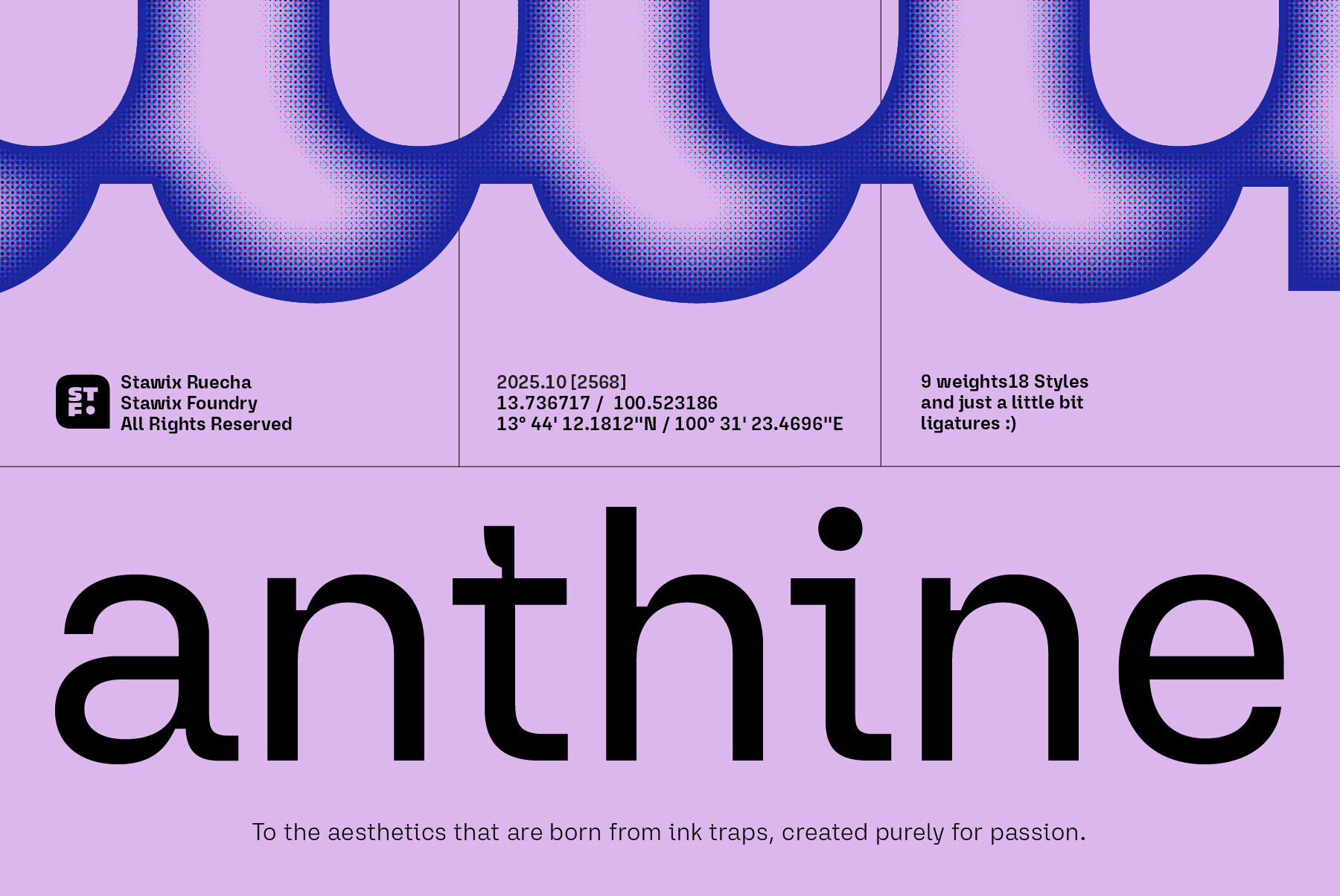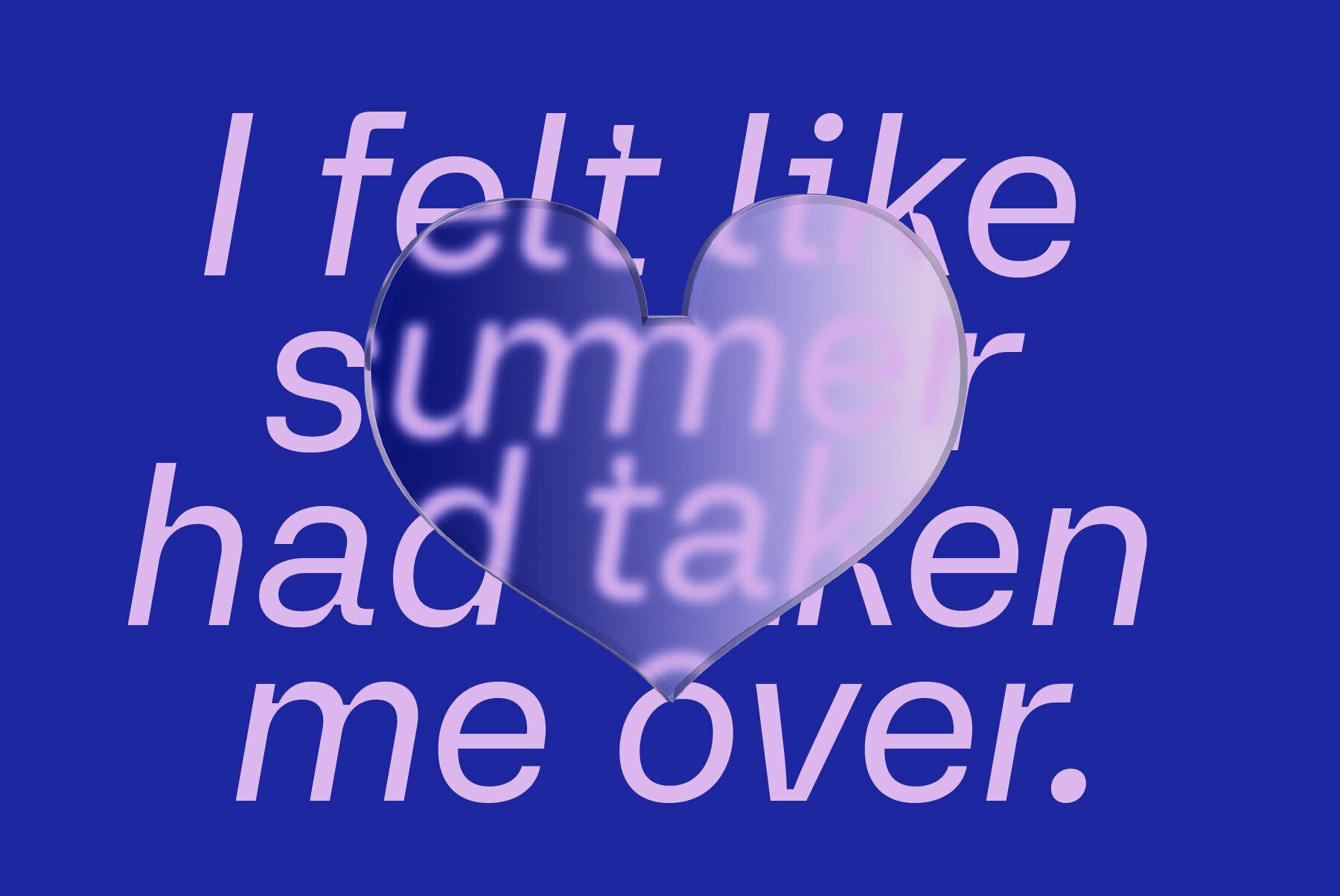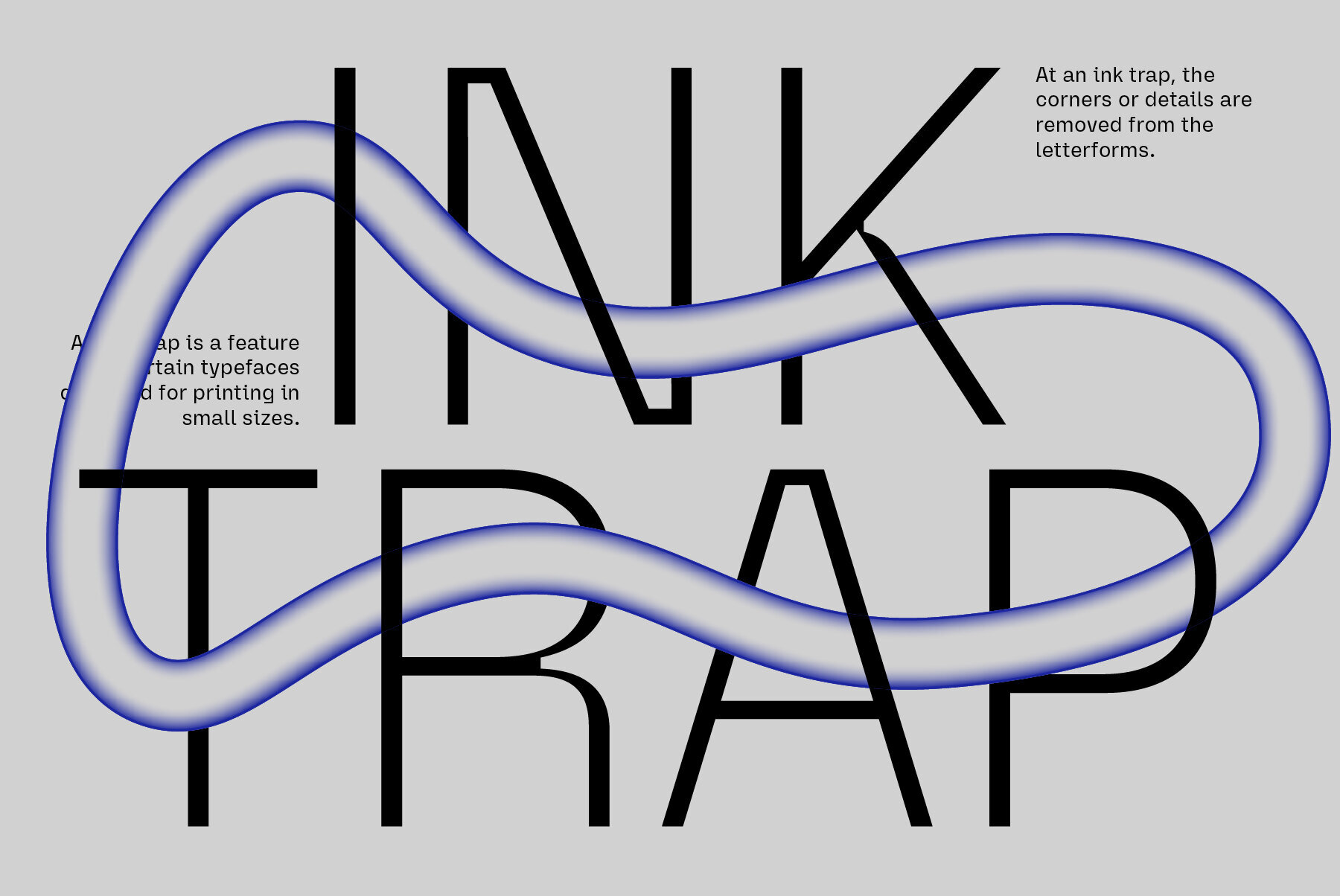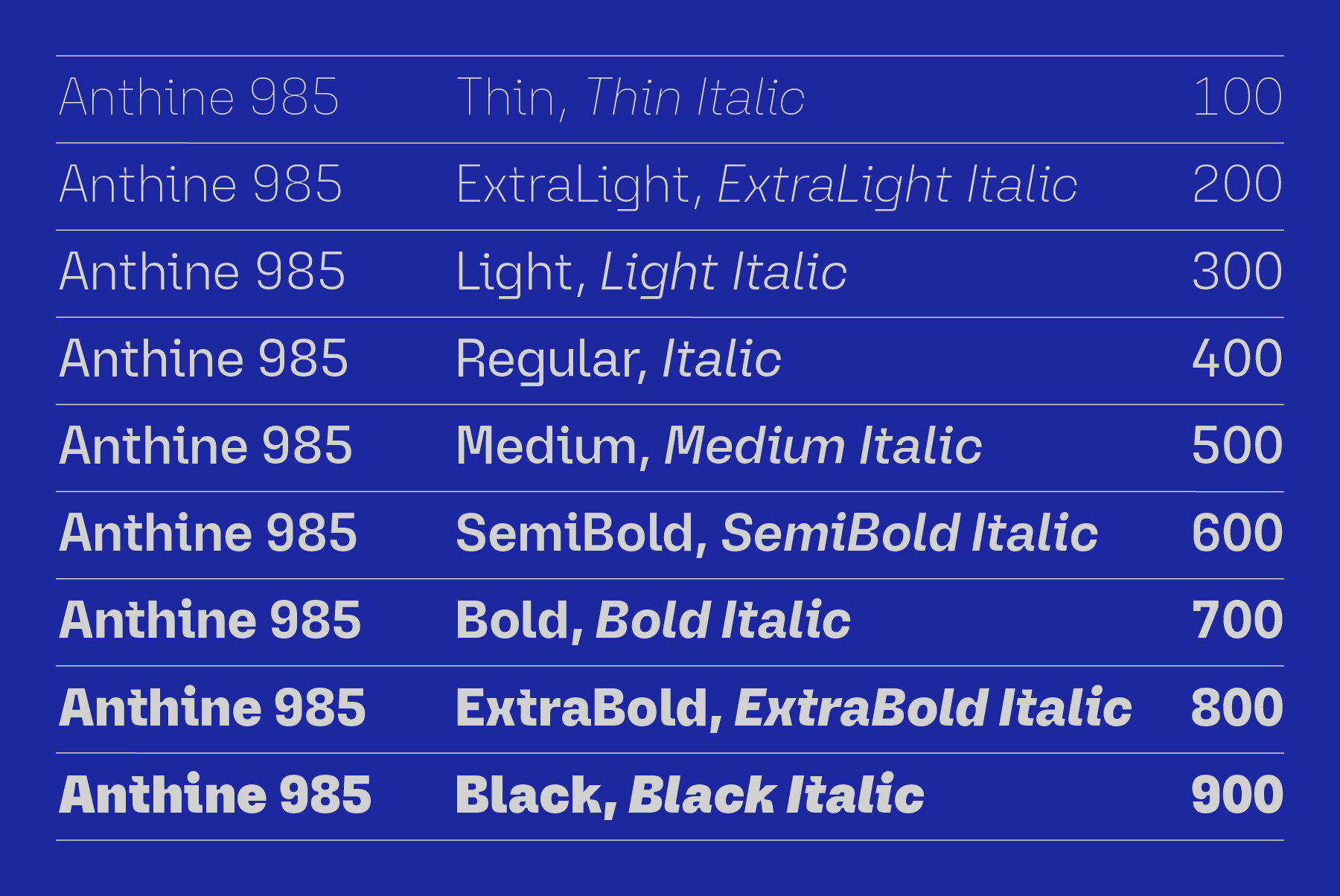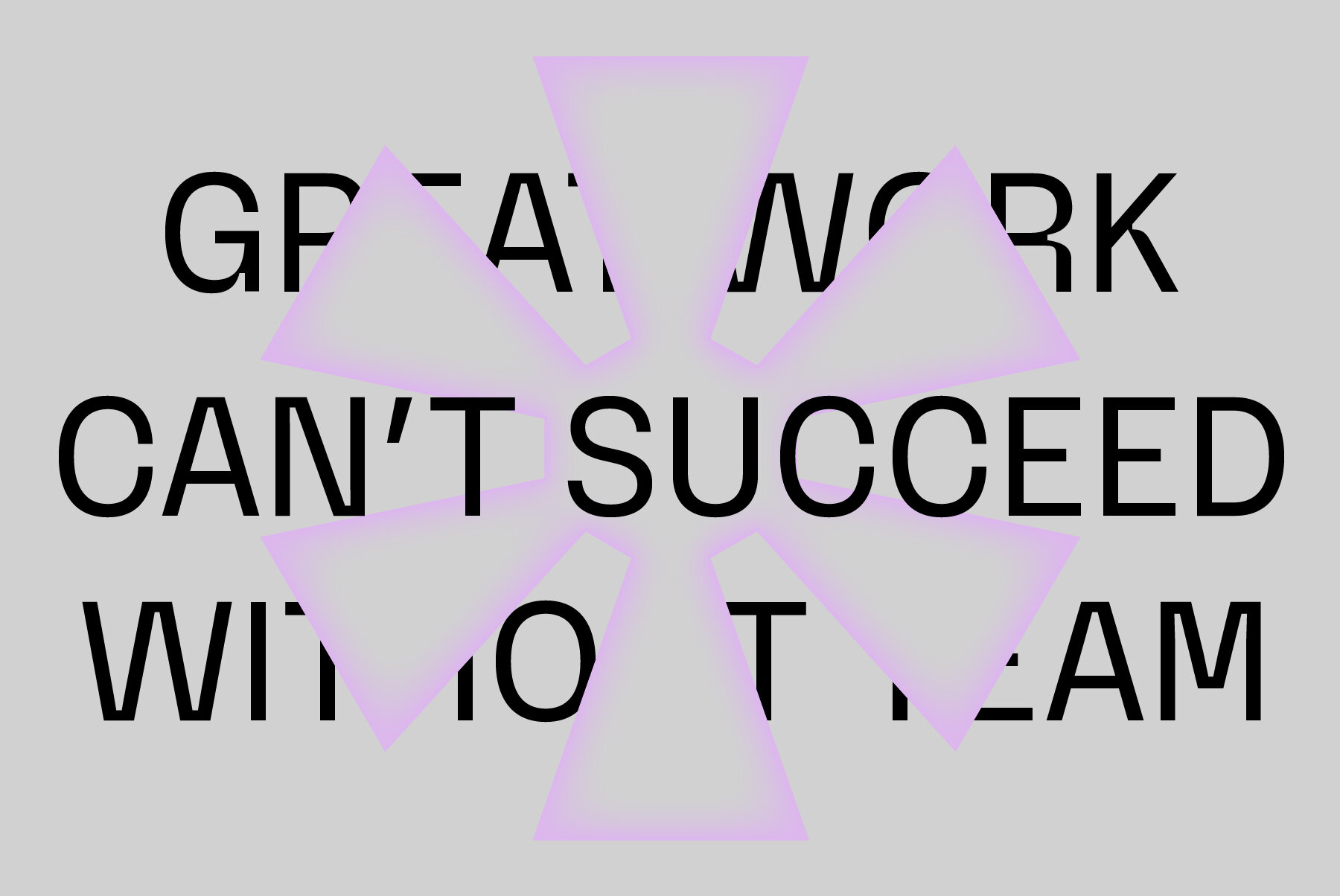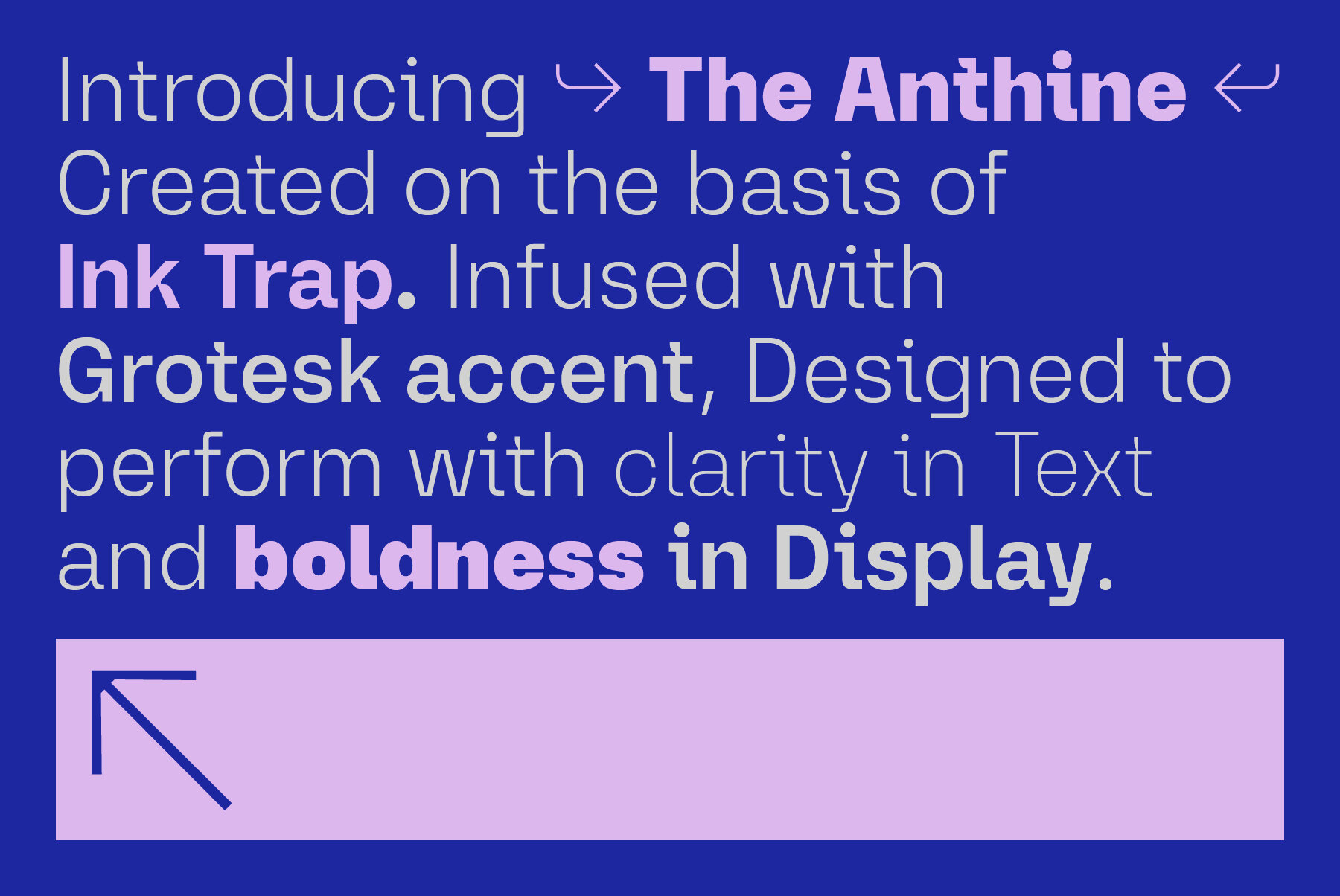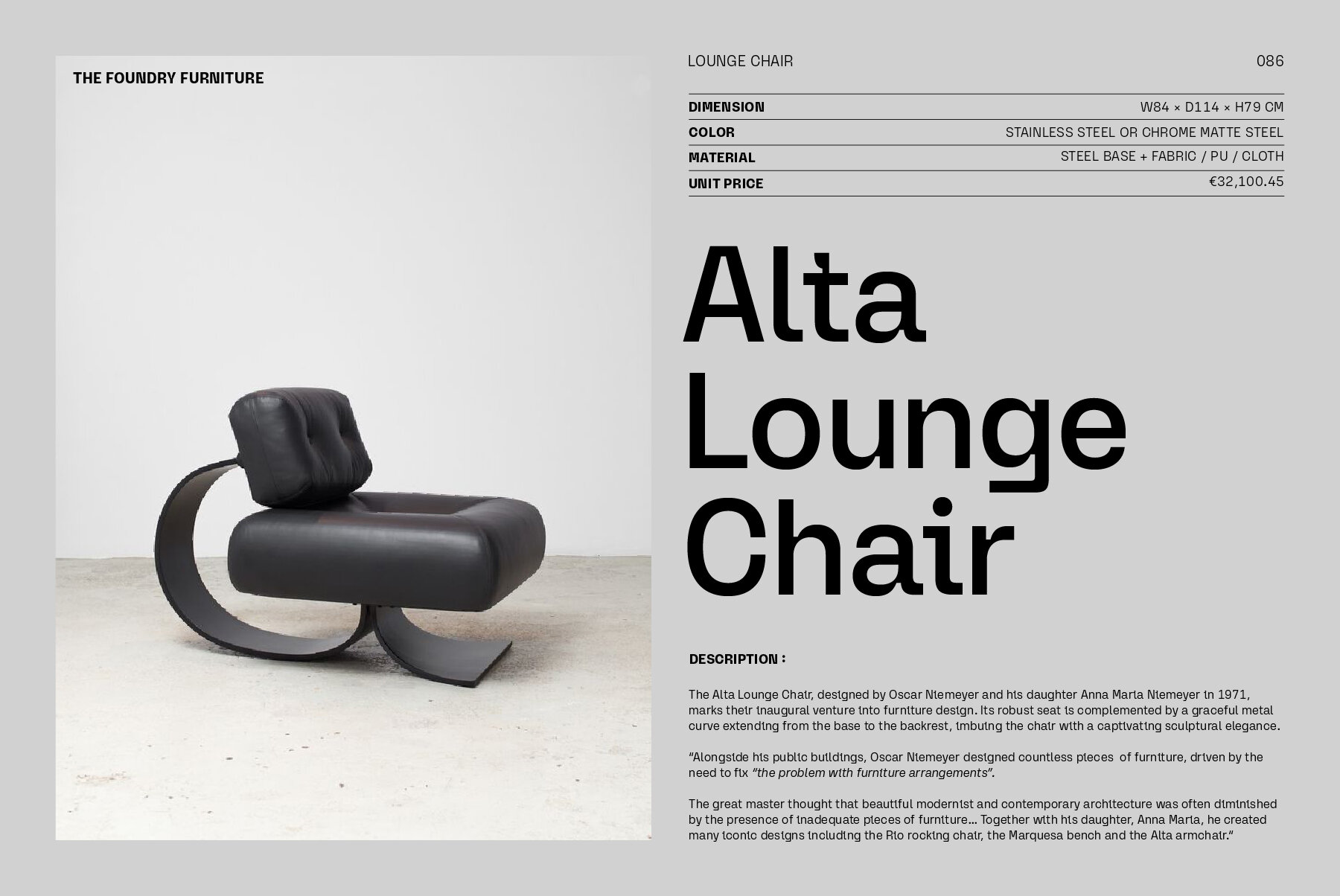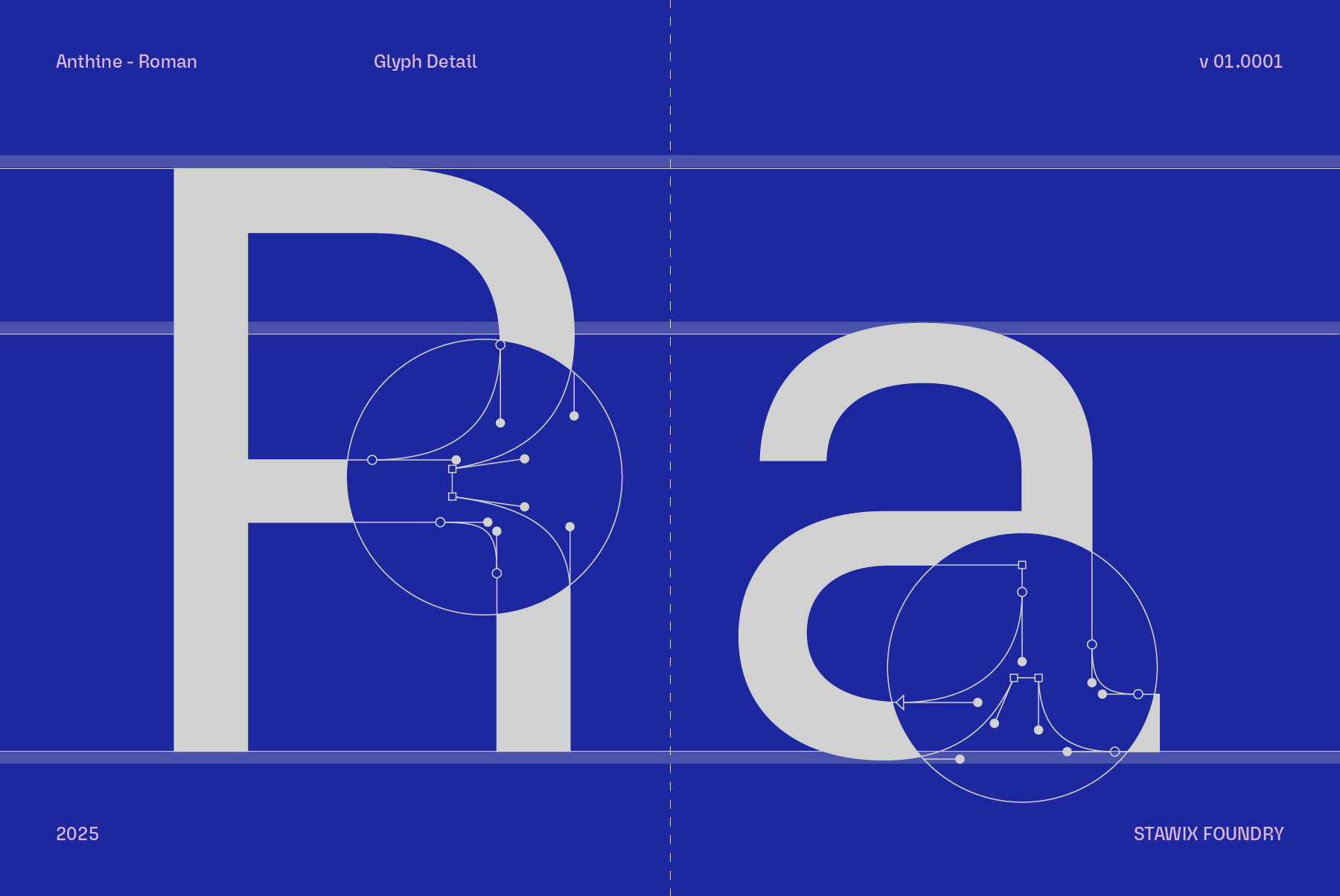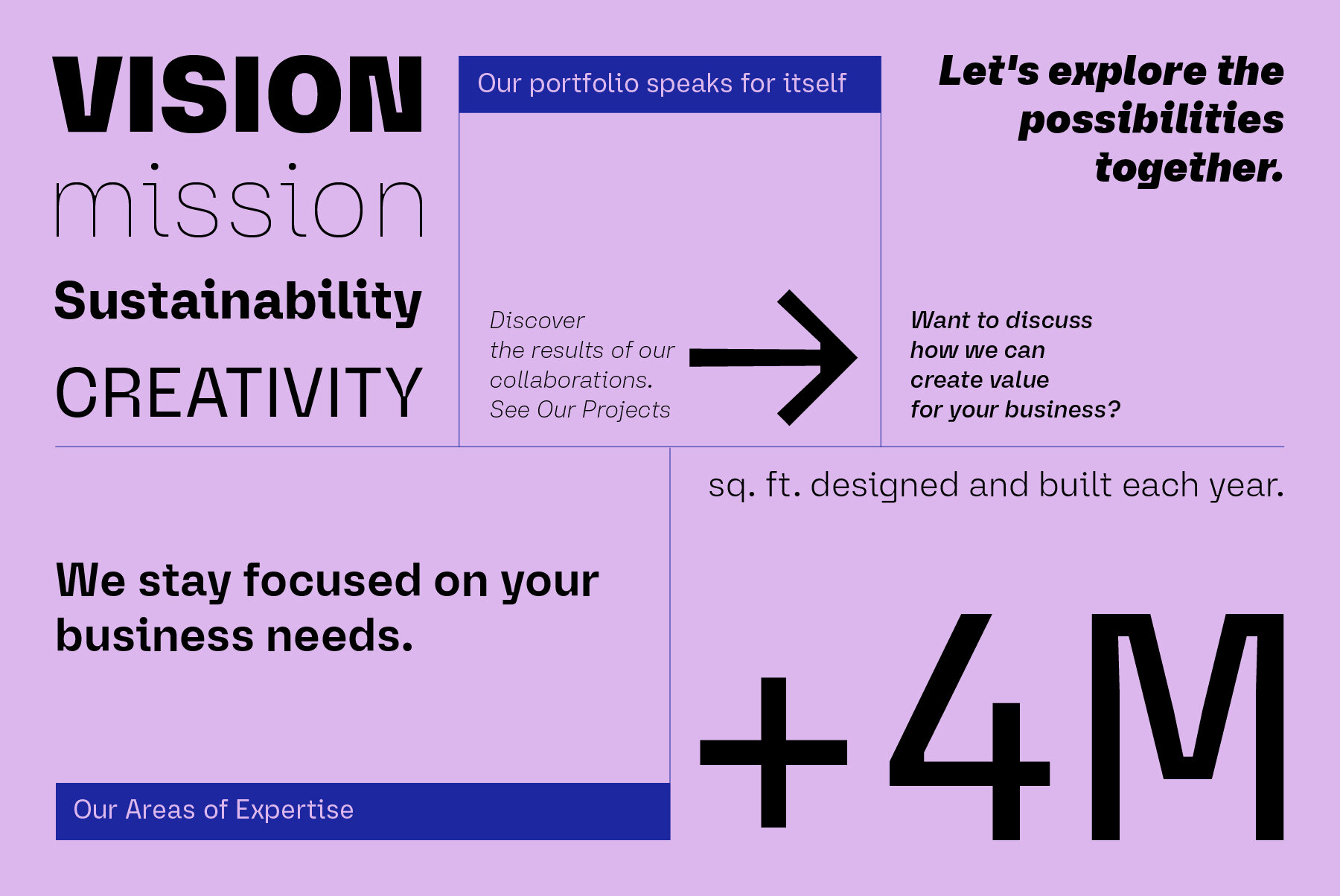
Anthine Font
Typography transcends mere shapes and letters; it is where clarity meets expression. Anthine encapsulates this philosophy by transforming subtle ink trap aesthetics into a defining feature. This choice results in a typeface characterized by sharp precision, modernity, and a distinct personality that commands attention. With a range that includes nine weights and eighteen styles, Anthine offers remarkable flexibility, from lighter cuts to bold display forms. Its balanced proportions and unique details make it a versatile choice for branding, editorial, and digital projects, consistently delivering a strong visual impact.Anthine: Ink Traps Reimagined in Typography